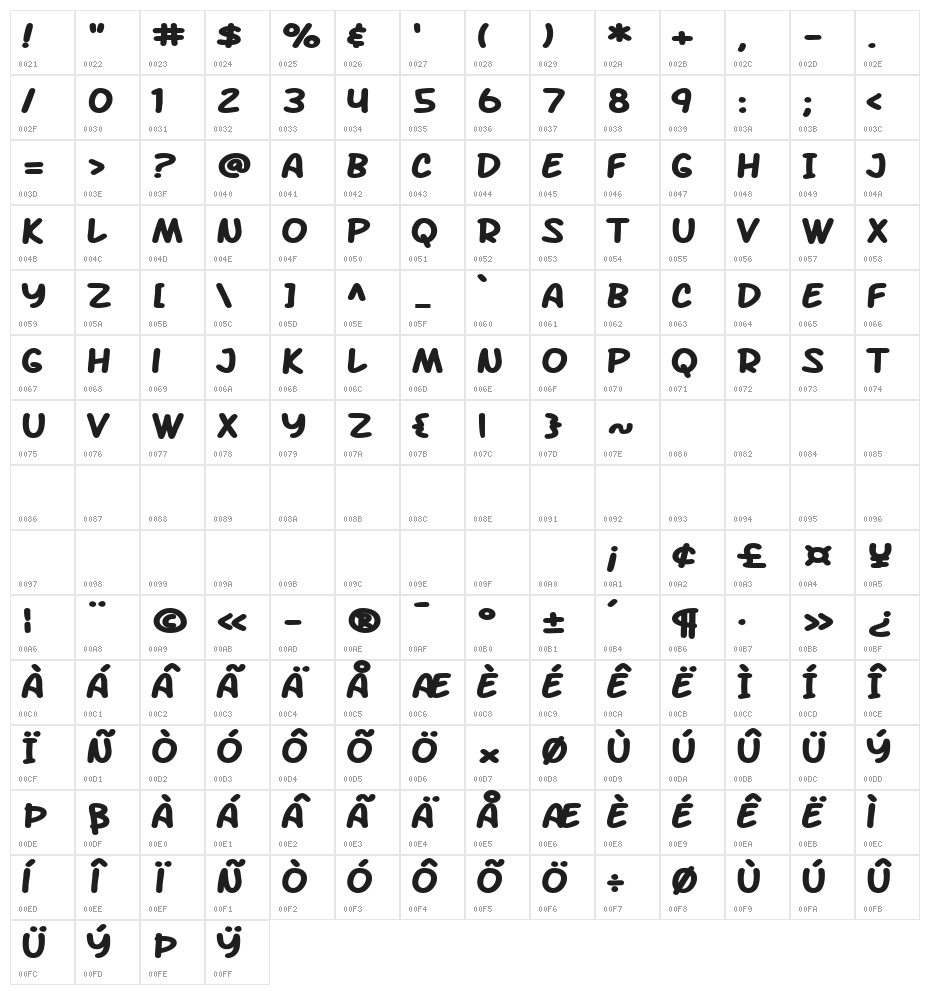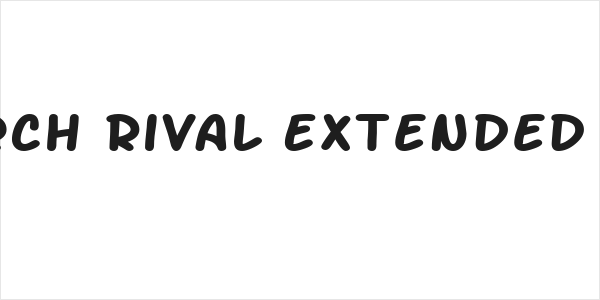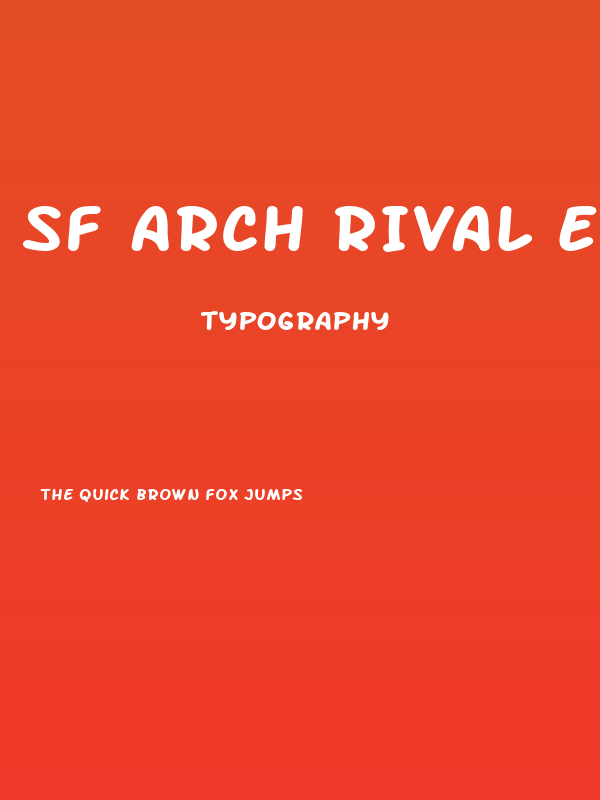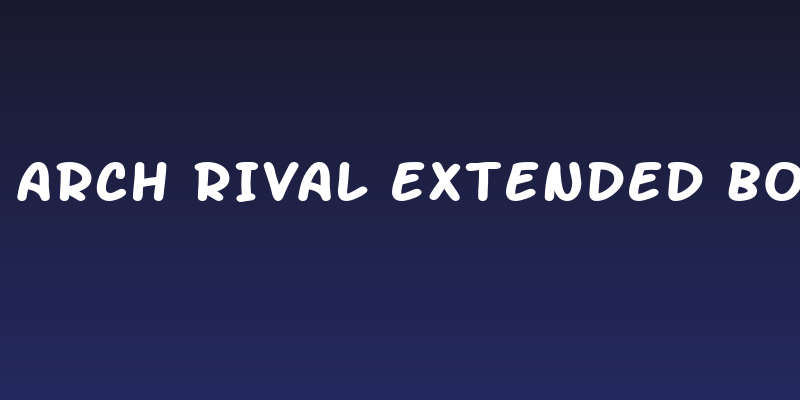
SF Arch Rival Extended Bold Font
SF Arch Rival Extended Bold Description
This font features a playful and bold style with rounded edges, giving it a friendly and approachable appearance. The characters are slightly extended, providing a sense of openness and readability. The bold weight enhances its visibility, making it suitable for attention-grabbing designs. The strokes are consistent in thickness, contributing to a cohesive look. The font includes a full set of uppercase and lowercase letters, numbers, and a variety of special characters, making it versatile for different design needs.
| Proposed Projects | Ideal for children's books, comic strips, playful branding, and casual invitations. |